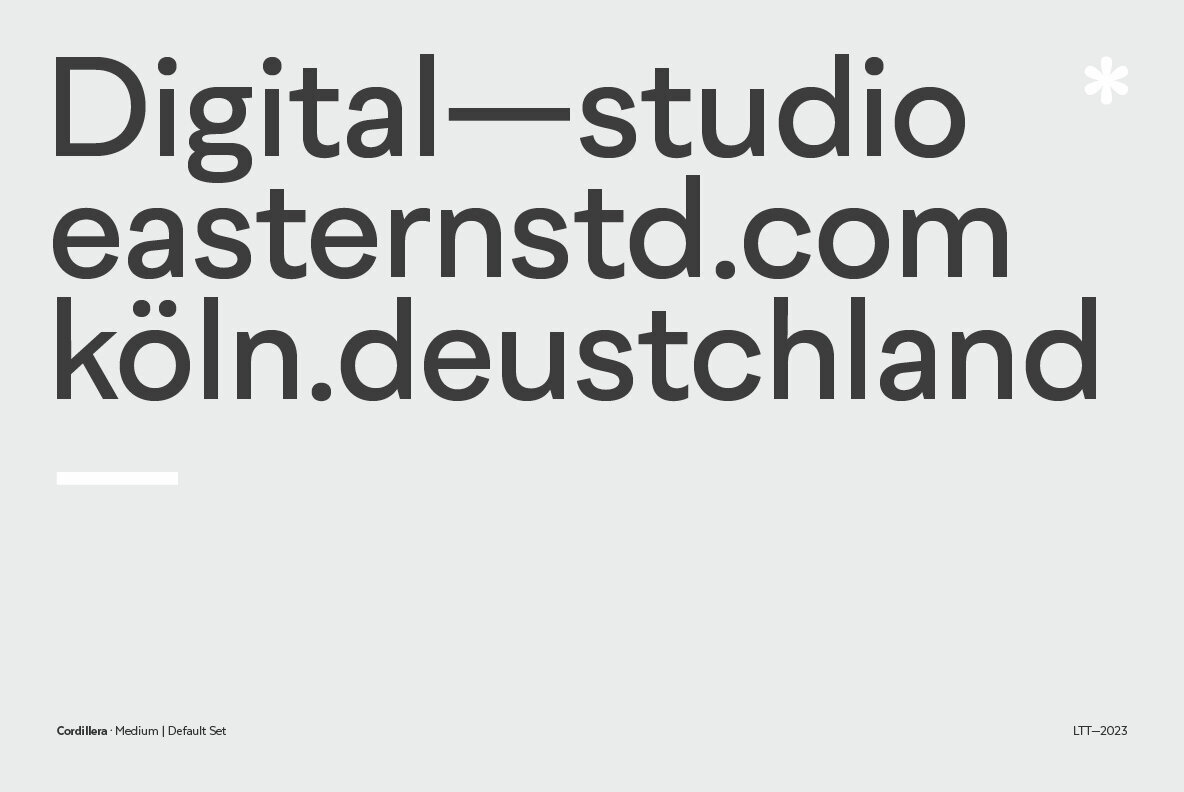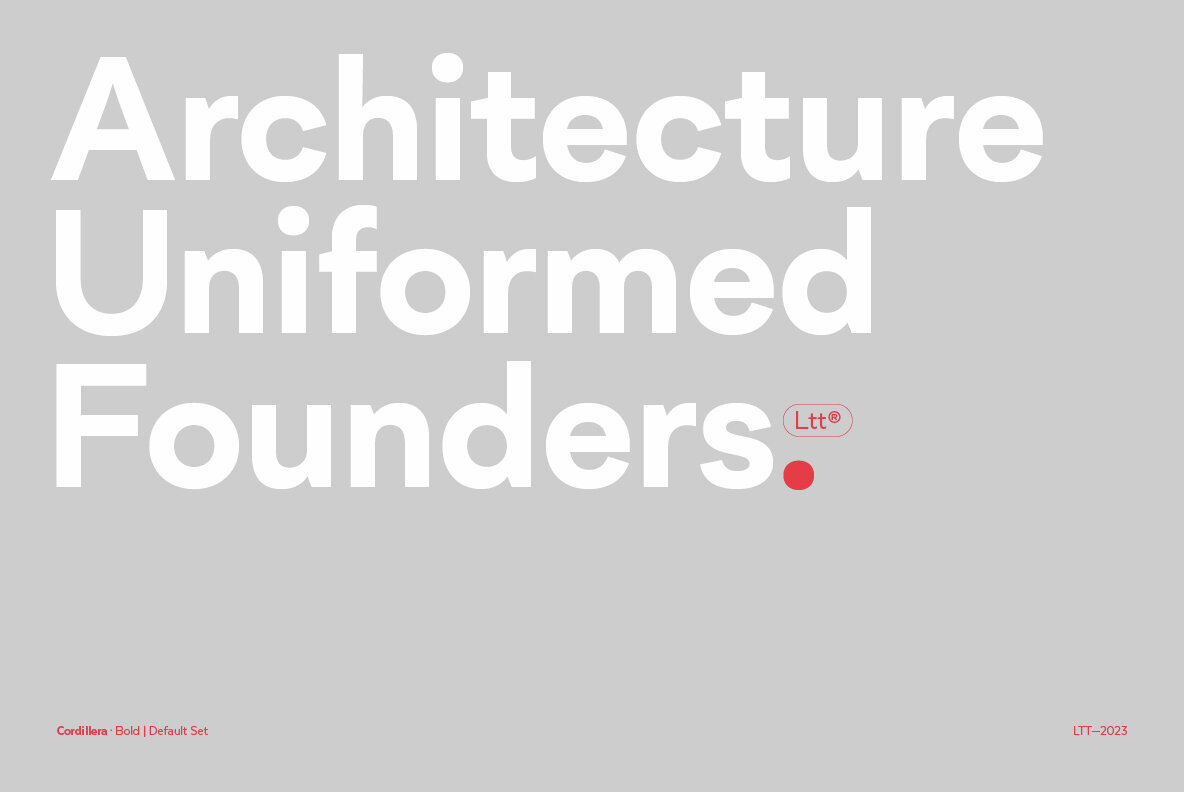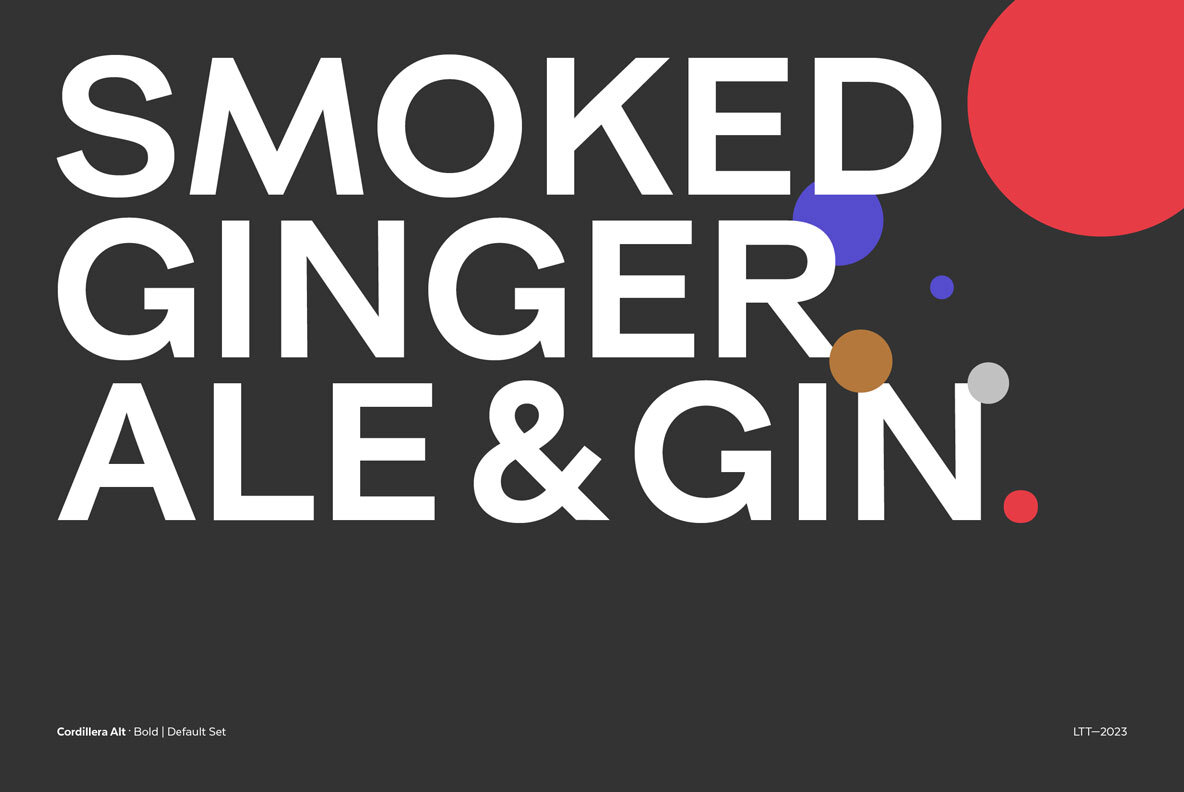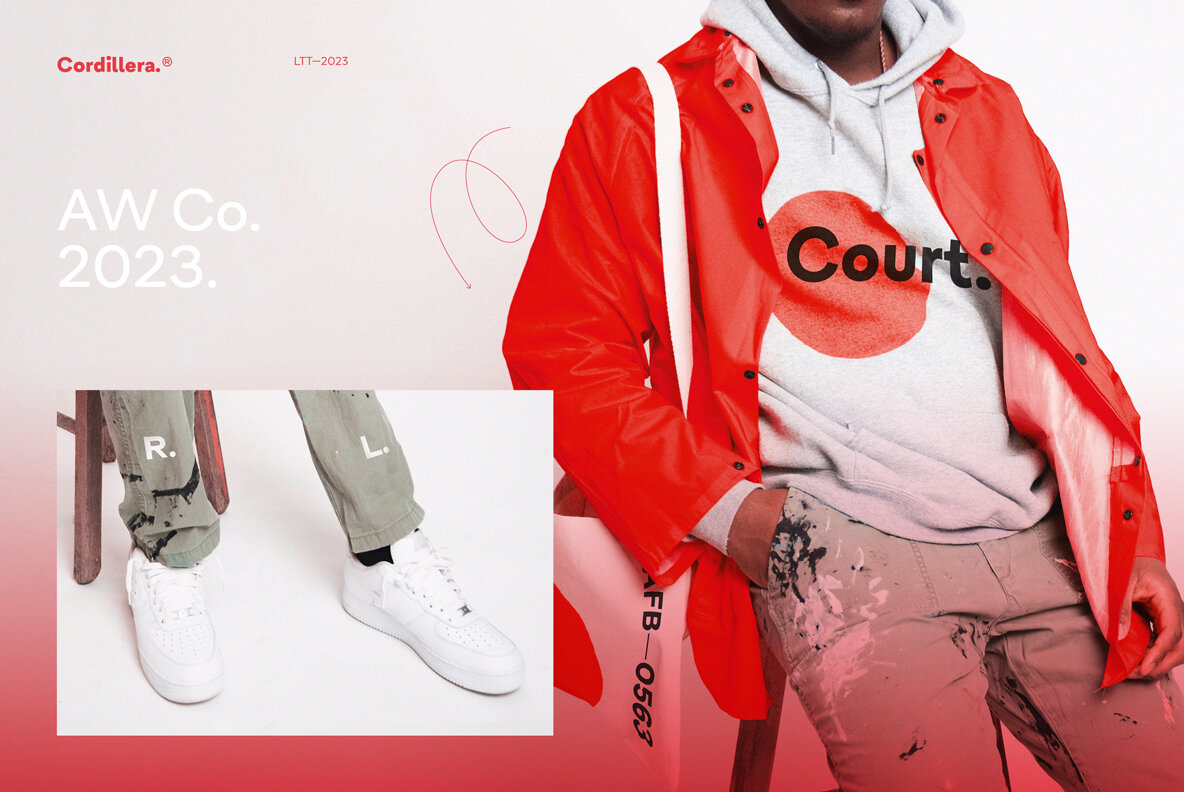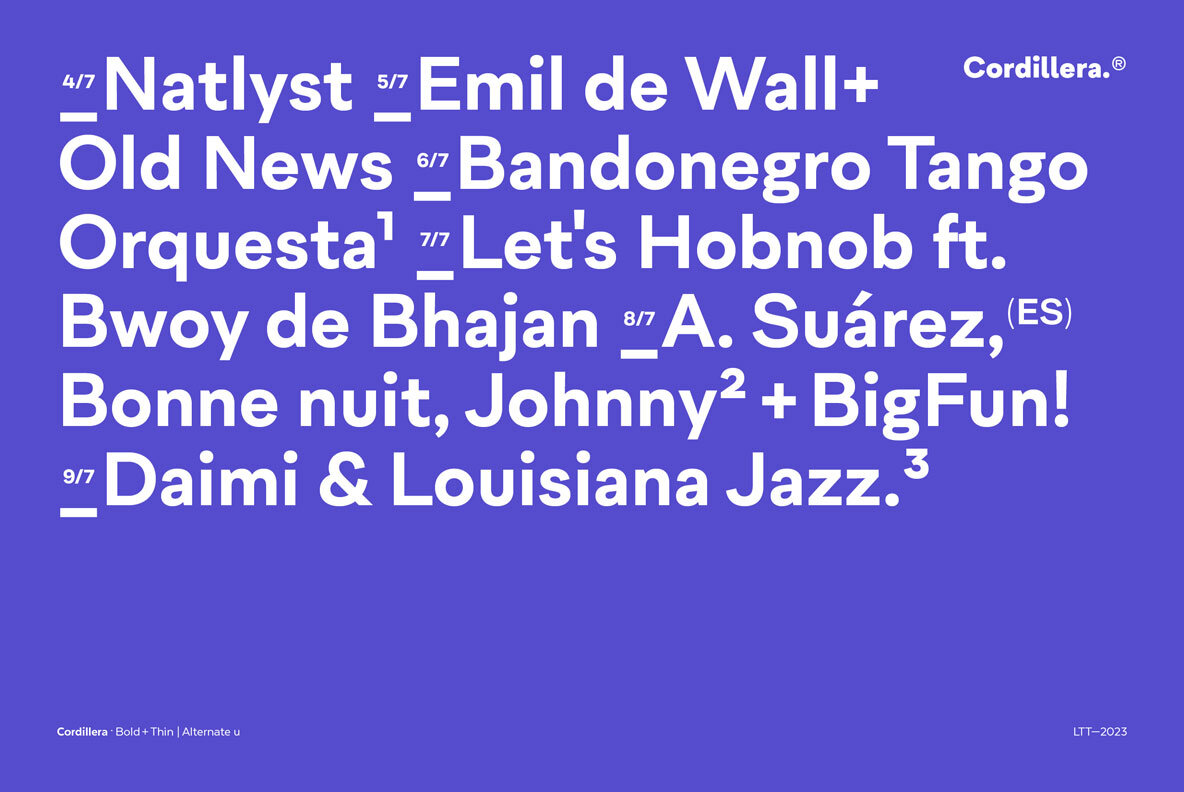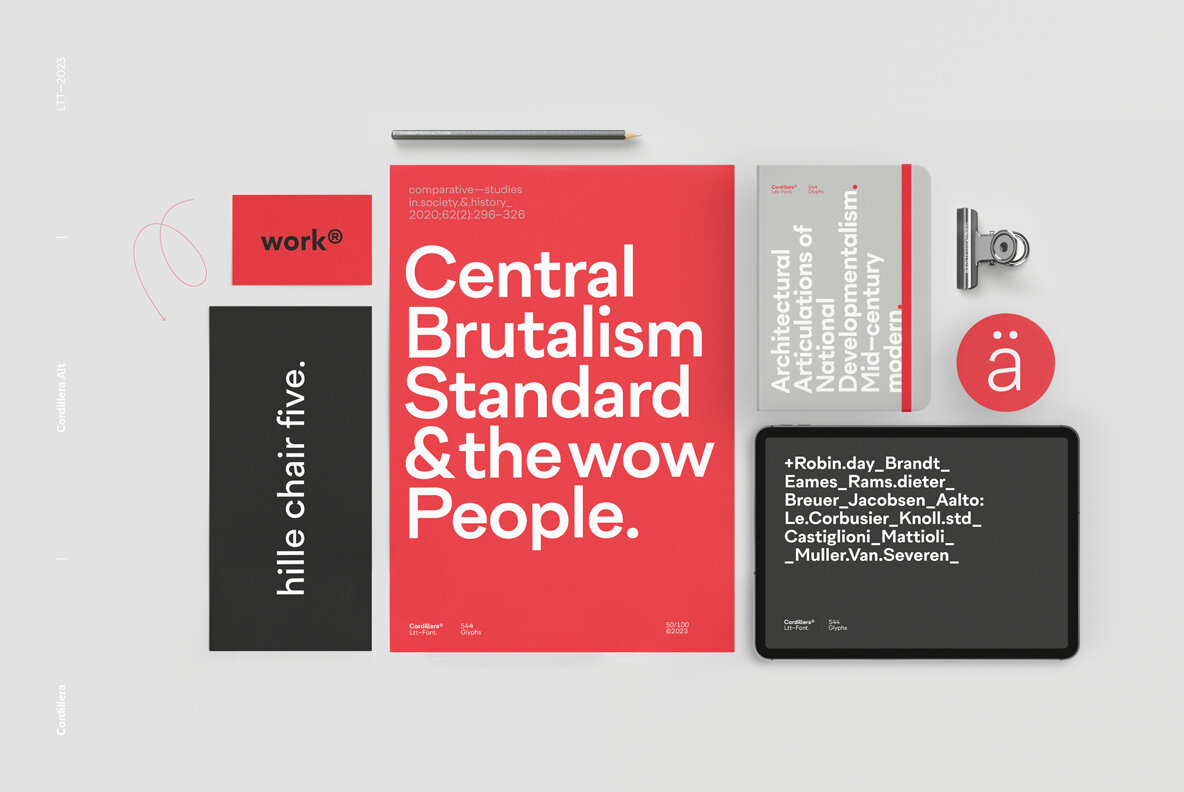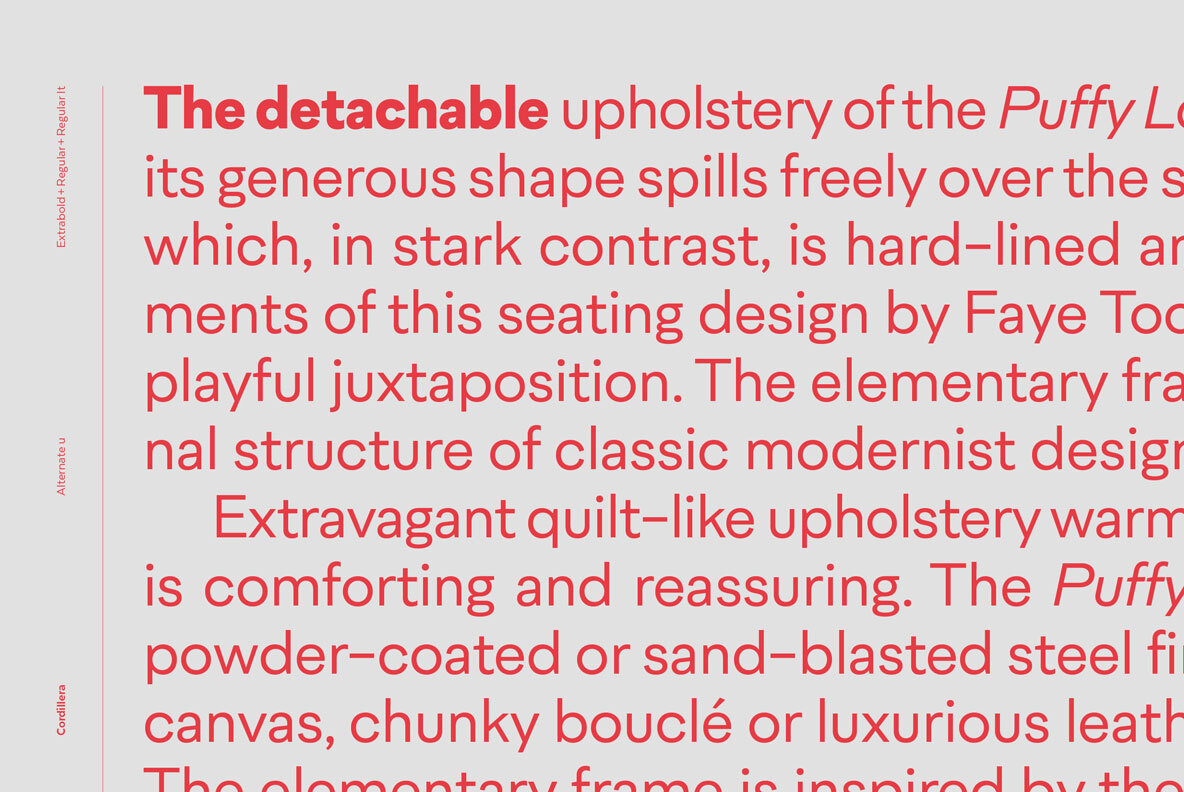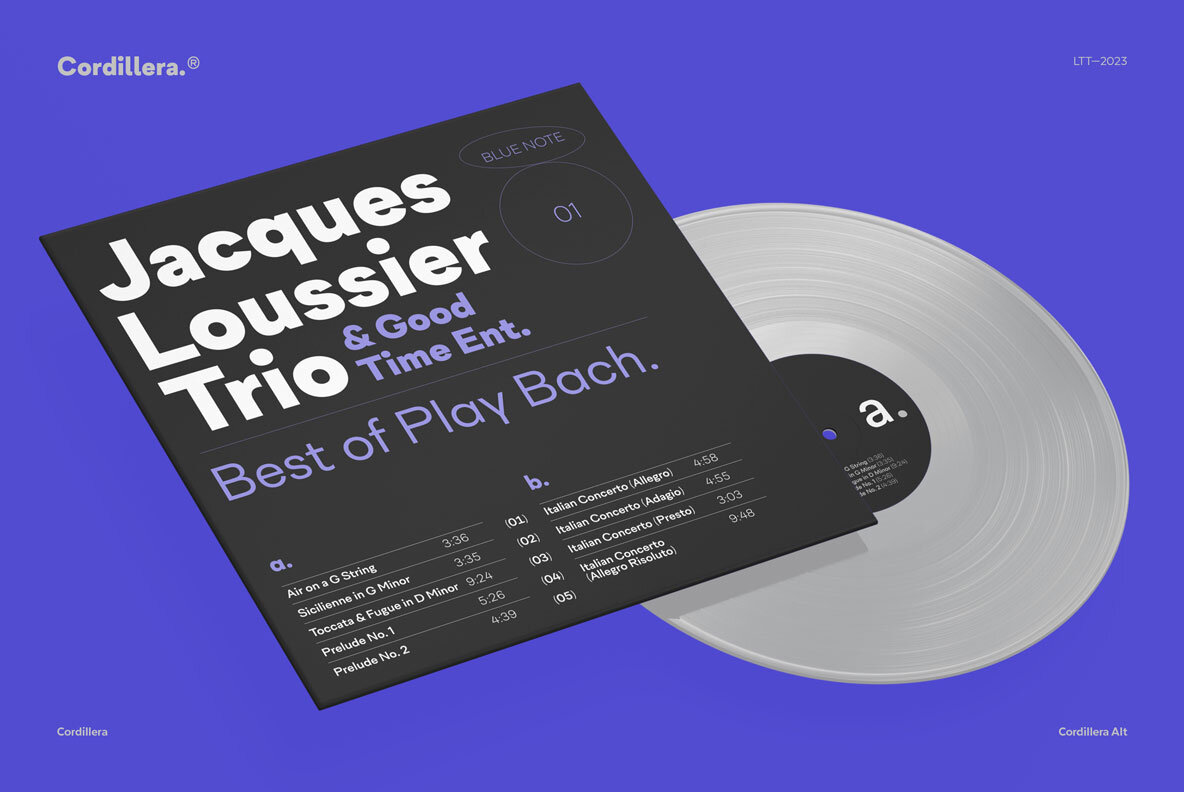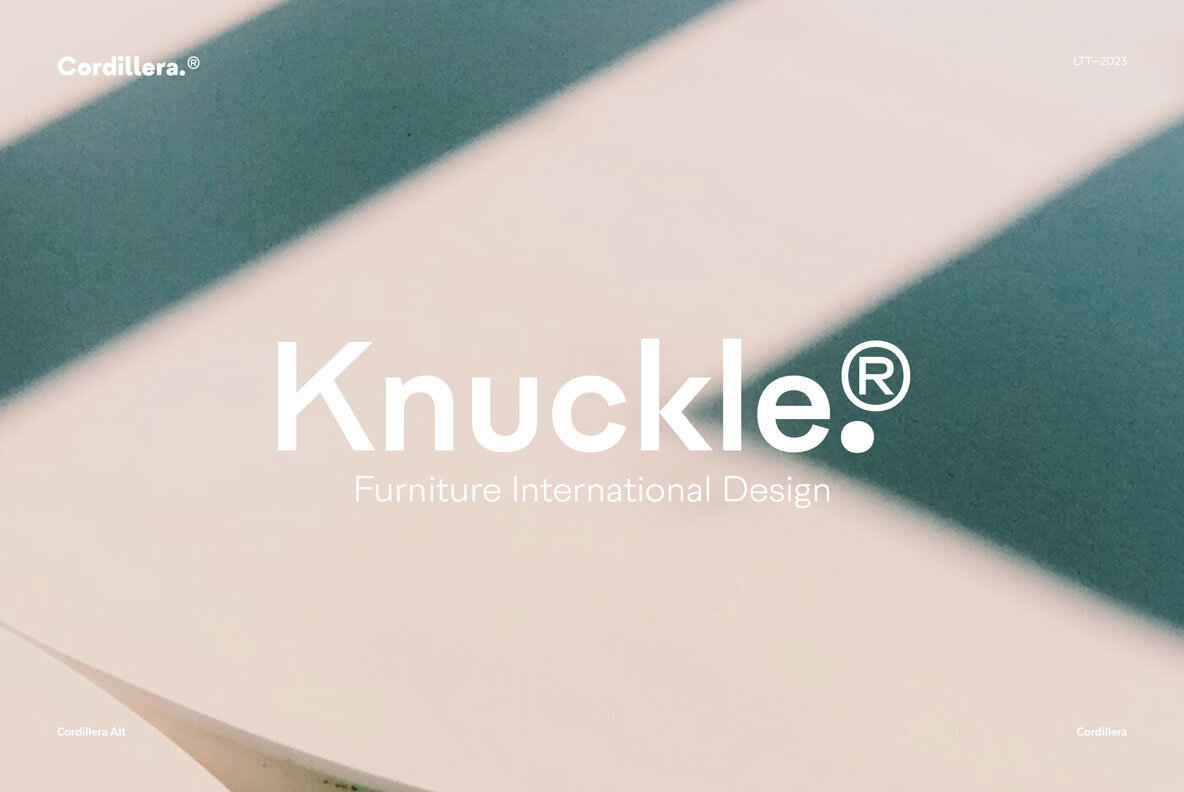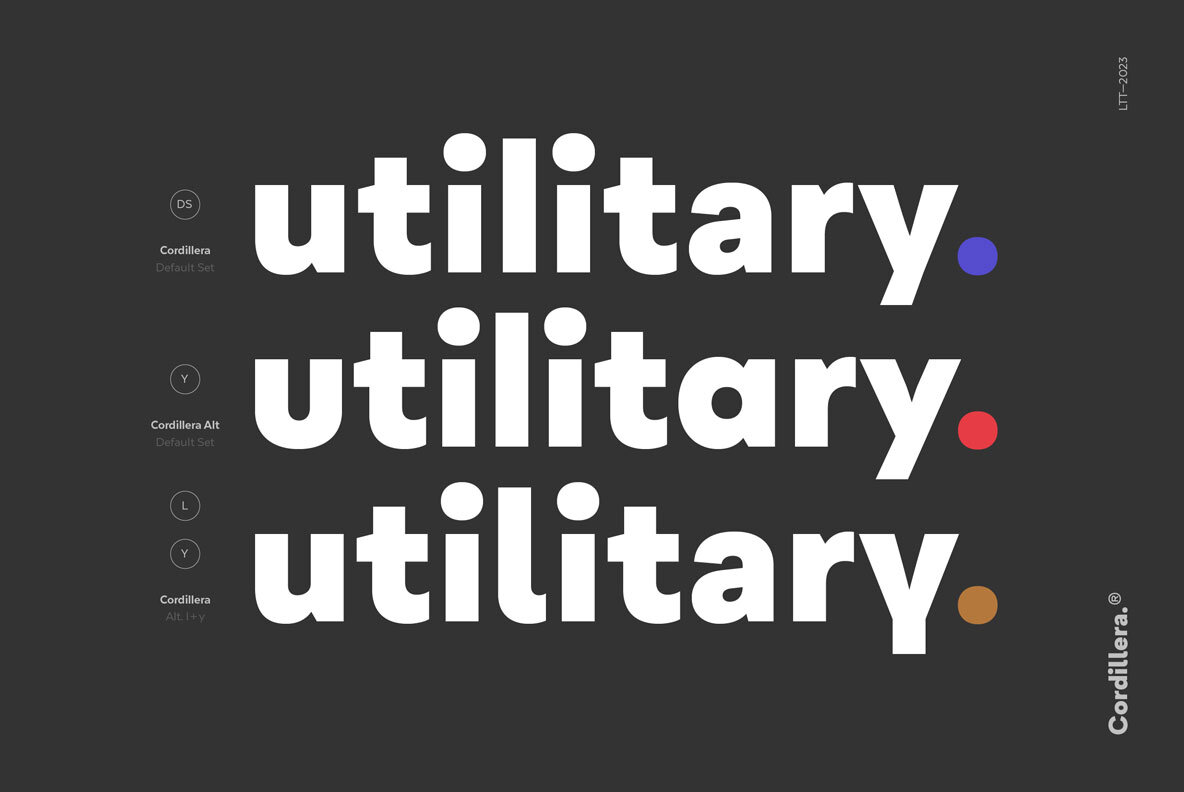
Cordillera Font
Clear, simple and multipurpose. We present Cordillera, a new sans serif designed for corporate use, which mixes classic proportions, geometric and neo-grotesque characters. Its alternative characters will allow you to go from expressive titles to neutral texts easily while maintaining the harmony of the system.